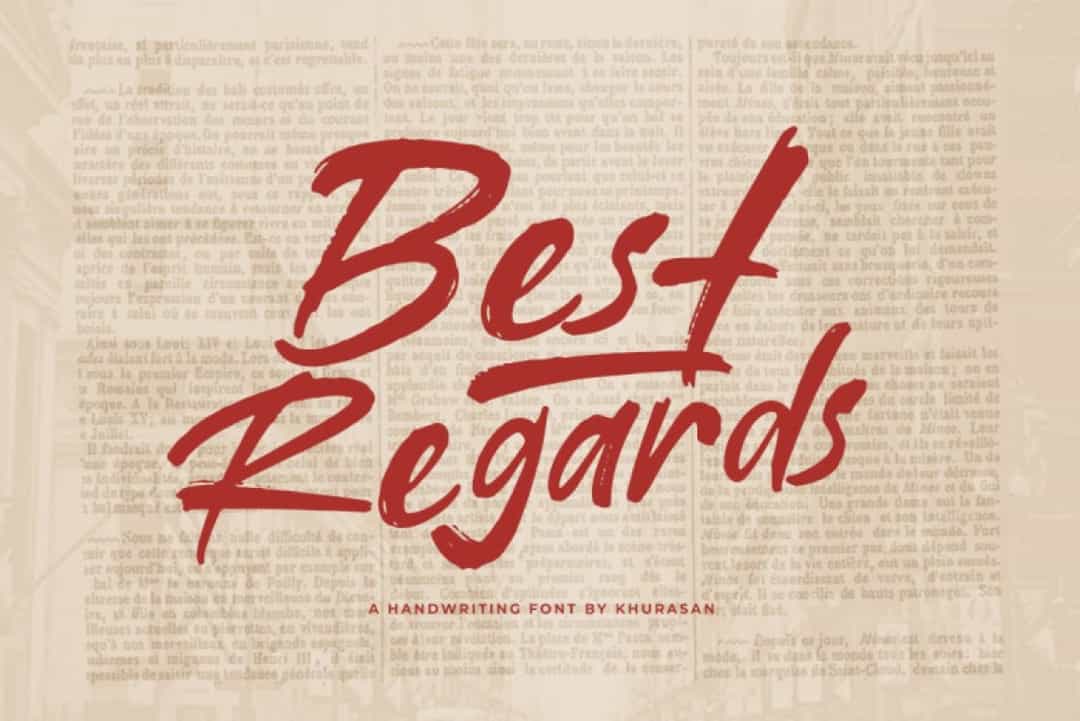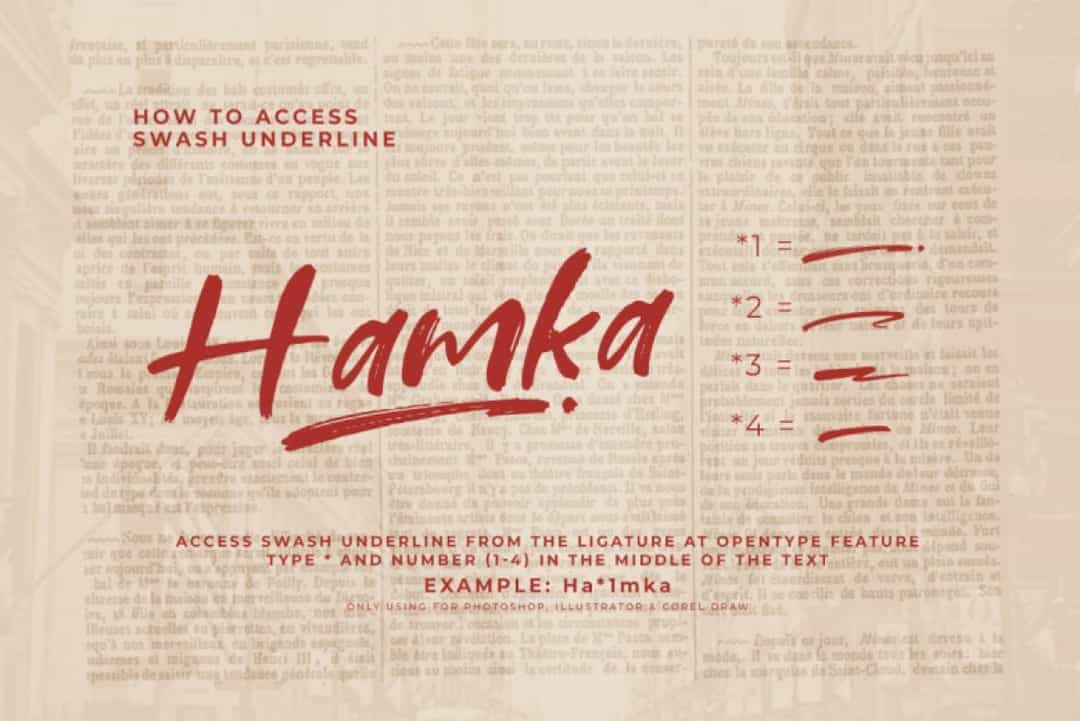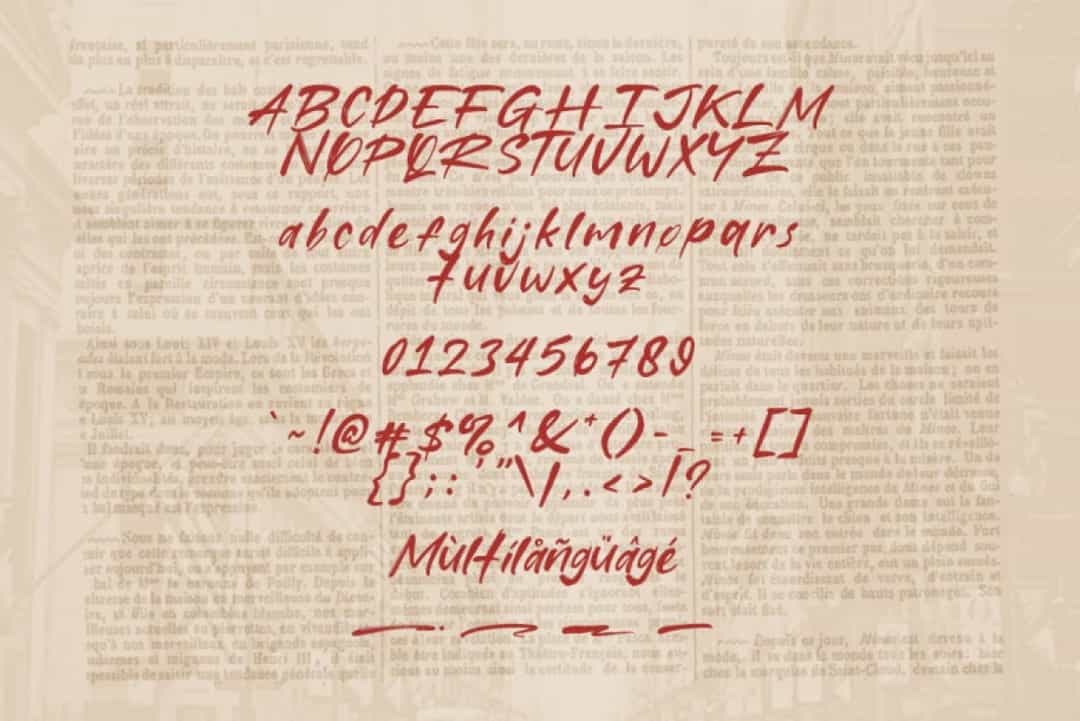
Best Regards font is a trendy brush type font designed to bring beauty into your designs. Take this font and use it to craft stunning works of art; its versatile nature means it fits well with an assortment of designs; just watch how they stand out! Best Regards font can be used in branding, logo or greeting card creation as well….!